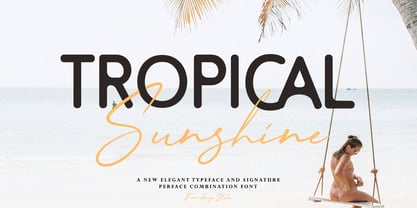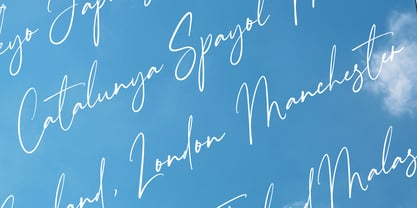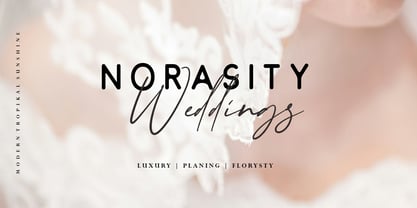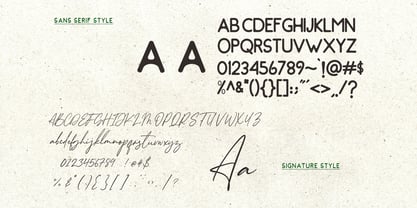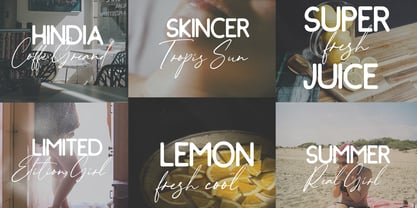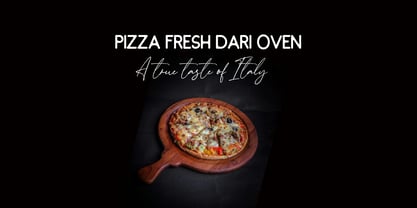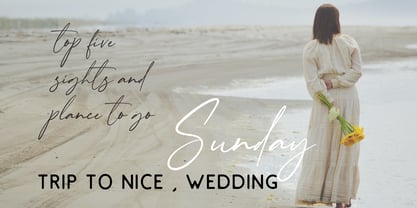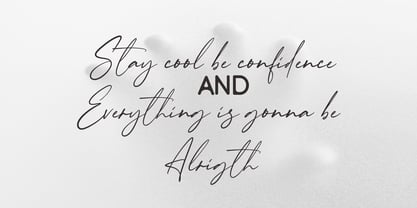
Tropical Sunshine Signature
by Anaya Studio
The Tropical Sunshine Signature Font Family was designed by Julizar Ismail and published by Anaya Studio. Tropical Sunshine Signature contains 2 styles and family package options.
Tropical Sunshine is a stunning font duo that brings the warmth of summer to your designs. Featuring a clean, modern sans-serif paired perfectly with an elegant handwritten script, this combination radiates both sophistication and relaxation.
Perfect for branding, logos, social media, wedding invitations, travel blogs, and tropical-themed projects, Tropical Sunshine captures the essence of sun-kissed elegance. The sans-serif typeface delivers strong readability, while the flowing script adds a personal, luxurious touch.
Let your designs glow with the charm of paradise—Tropical Sunshine is your go-to font for projects that need a stylish, breezy, and professional feel.